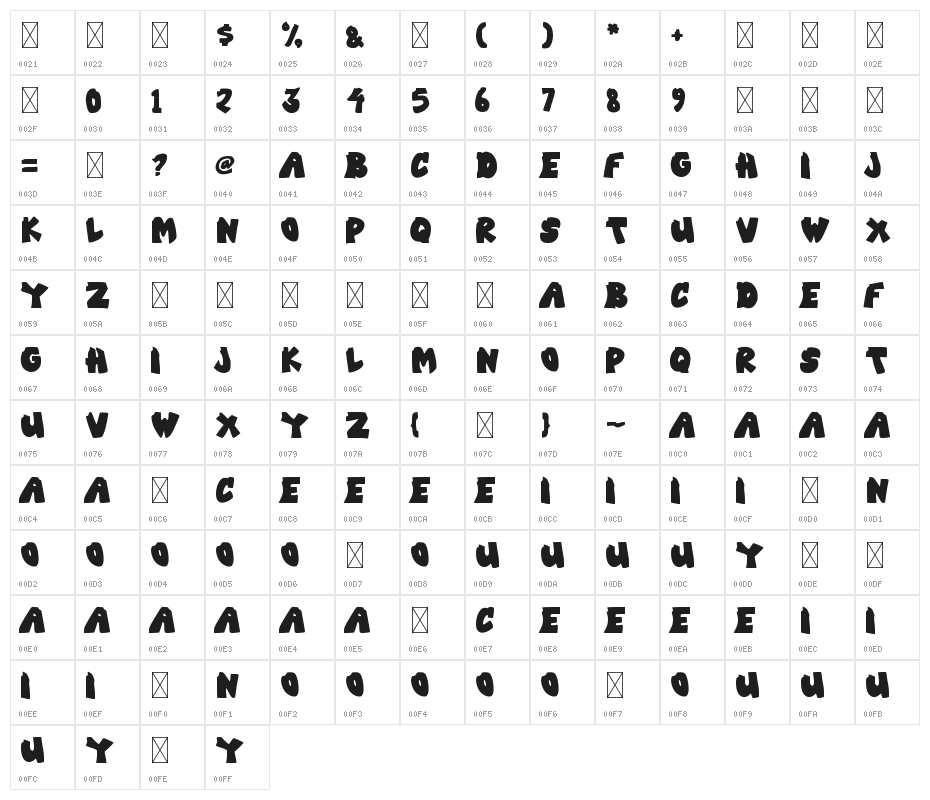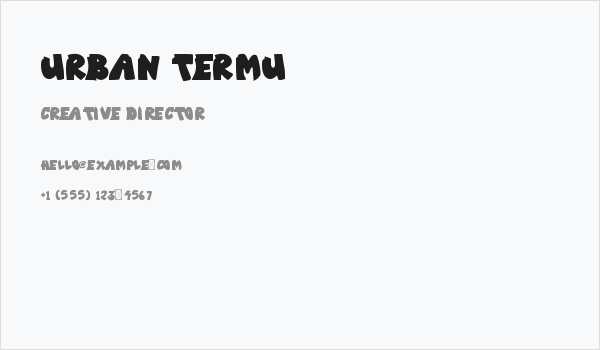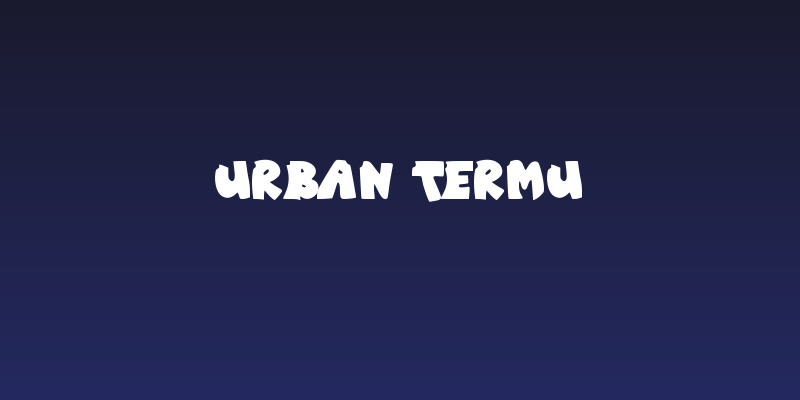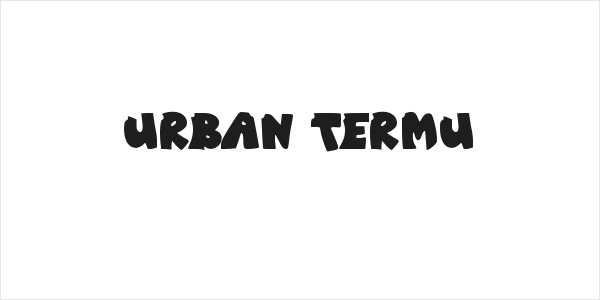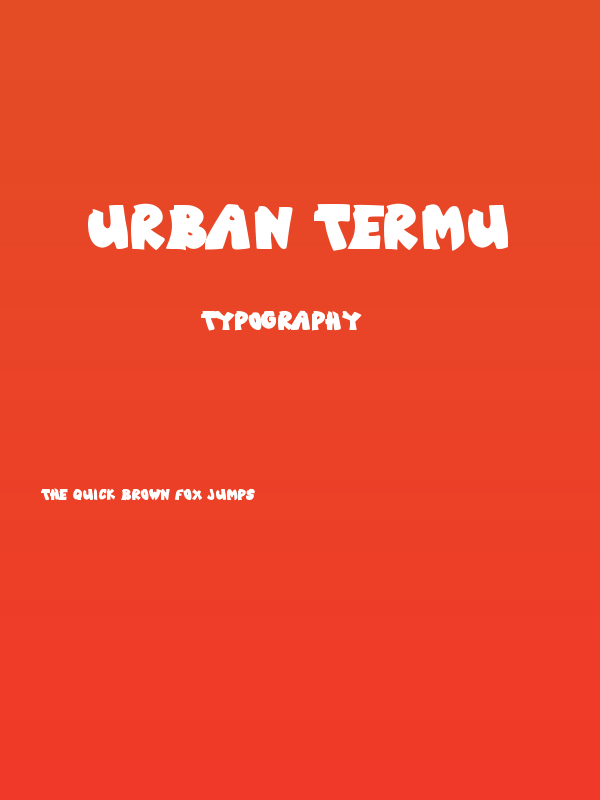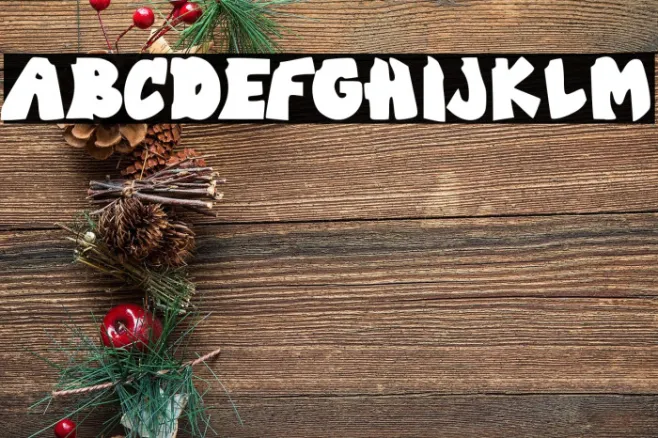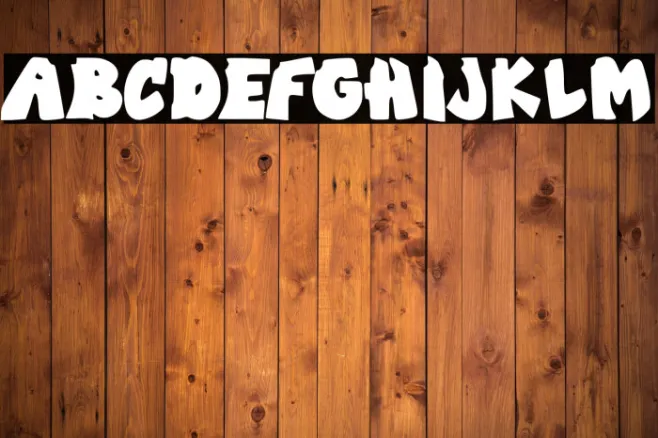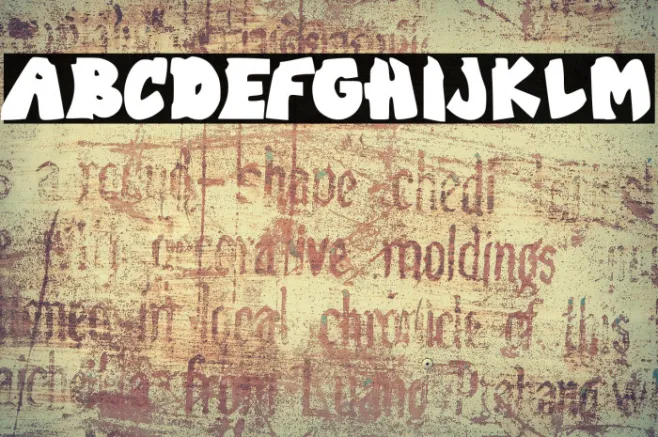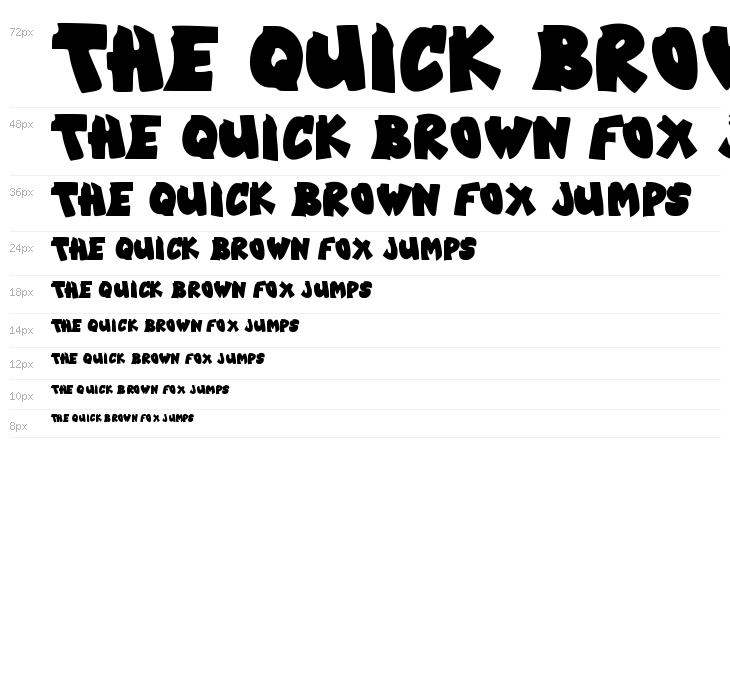
Urban Termu Font
Urban Termu Description
This font features bold, playful characters with a distinctly urban and graffiti-inspired style. The letters are thick and rounded, giving them a friendly and approachable appearance. The uppercase and lowercase letters maintain a consistent weight, contributing to a cohesive look. The numbers and special characters follow the same design principles, ensuring uniformity across all elements. This font's unique style makes it ideal for projects that require a touch of creativity and modern flair.
| Proposed Projects | Perfect for street art designs, urban-themed posters, youth-oriented branding, and creative advertising campaigns. |